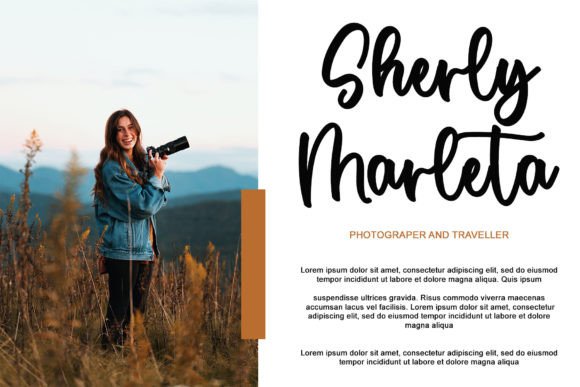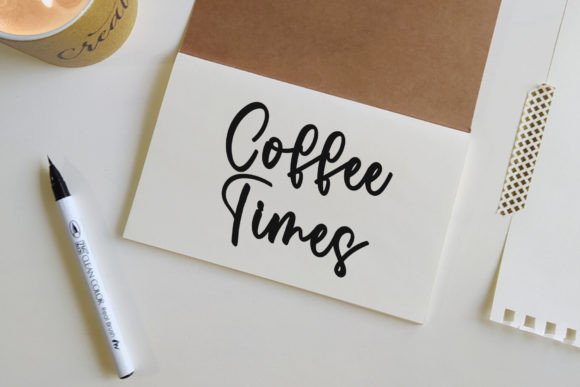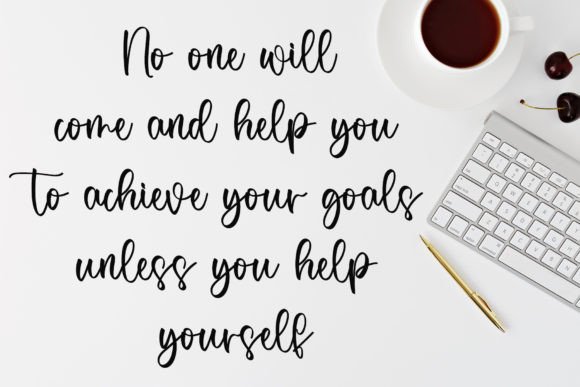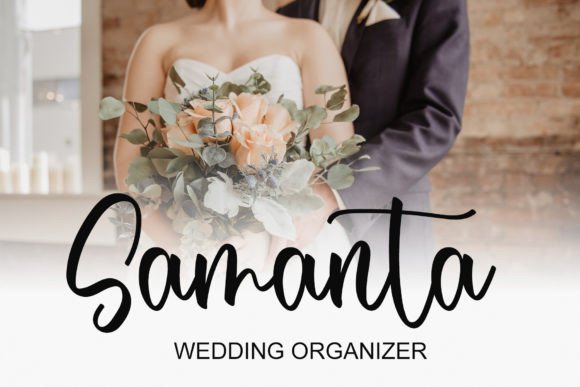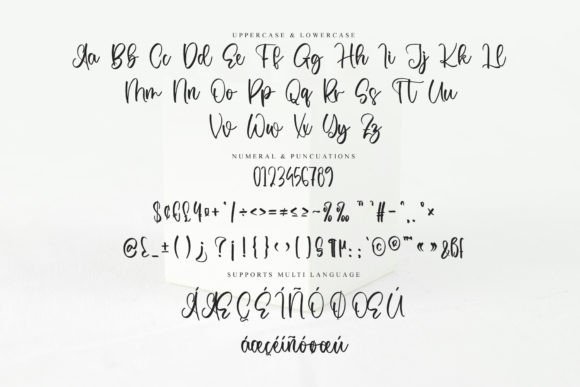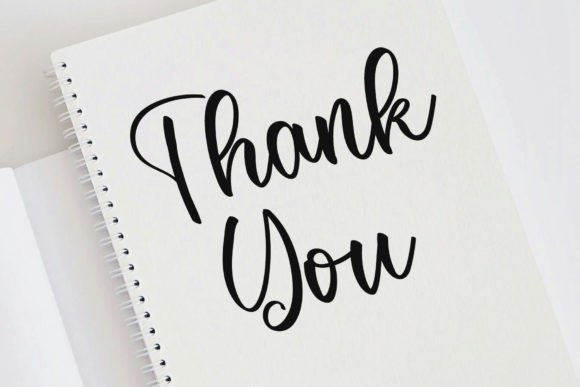
Introducing Almost Font: The Sweet and Elegant Cursive Handwritten Font
Are you looking for a font that can add a touch of elegance and romance to your designs? Look no further than Almost Font, a sweet and cursive handwritten font that is perfect for a variety of design projects. In this article, we’ll take a closer look at the features and benefits of Almost Font, and explore how it can be used to elevate your designs.
What is Almost Font?
Almost Font is a beautiful, cursive handwritten font that is designed to add a touch of warmth and personality to your designs. Its gentle and flowing lines make it perfect for creating elegant and sophisticated designs that are sure to impress. Whether you’re working on a branding project, creating a logo, or designing a wedding invitation, Almost Font is the perfect choice.
Key Features of Almost Font
- Sweet and Cursive Handwritten Style: Almost Font features a beautiful, cursive handwritten style that is both elegant and playful.
- Versatile: This font is perfect for a variety of design projects, including branding, logos, wedding invitations, greeting cards, fashion designs, and more.
- Elegant and Romantic: Almost Font adds a touch of elegance and romance to any design, making it perfect for projects that require a sophisticated look and feel.
- Casual and Friendly: Despite its elegant appearance, Almost Font is still a casual and friendly font that is perfect for designs that require a more approachable tone.
Use Cases for Almost Font
Almost Font is a versatile font that can be used in a variety of design projects. Here are some use cases to get you started:
- Branding: Use Almost Font to create a custom logo or wordmark that reflects your brand’s personality and style.
- Wedding Invitations: Add a touch of elegance and romance to your wedding invitations with Almost Font.
- Greeting Cards: Use Almost Font to create beautiful and heartfelt greeting cards for special occasions.
- Fashion Designs: Almost Font is perfect for fashion designs, including lookbooks, catalogs, and marketing materials.
- Marketing Promotion: Use Almost Font to create eye-catching marketing materials, including brochures, flyers, and posters.
Why Choose Almost Font?
There are many fonts to choose from, but Almost Font stands out for its unique combination of elegance and playfulness. Here are some reasons why you should choose Almost Font for your next design project:
- Unique Style: Almost Font features a unique and distinctive style that sets it apart from other fonts.
- Ease of Use: This font is easy to use and pairs well with a variety of other fonts, making it perfect for designs that require a high level of flexibility.
- High-Quality Design: Almost Font is designed to high standards, ensuring that your designs look professional and polished.
Tips for Using Almost Font
Here are some tips for getting the most out of Almost Font:
- Pair with Other Fonts: Almost Font pairs well with a variety of other fonts, so don’t be afraid to experiment with different combinations.
- Use for Headings and Titles: This font is perfect for headings and titles, where its elegant and cursive style can really shine.
- Experiment with Colors: Almost Font looks great in a variety of colors, so don’t be afraid to experiment with different color schemes.